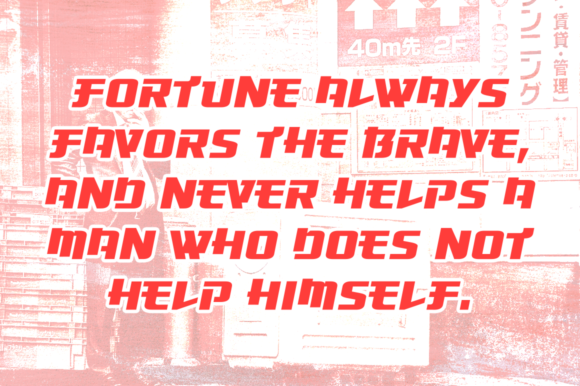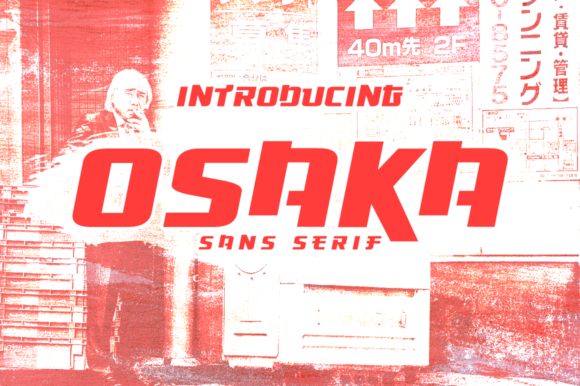
Osaka is a super cool, sans serif display font that will give all your projects a thematic and stunning appeal! This manga inspired free font was crafted by typographer Vic Fieger.